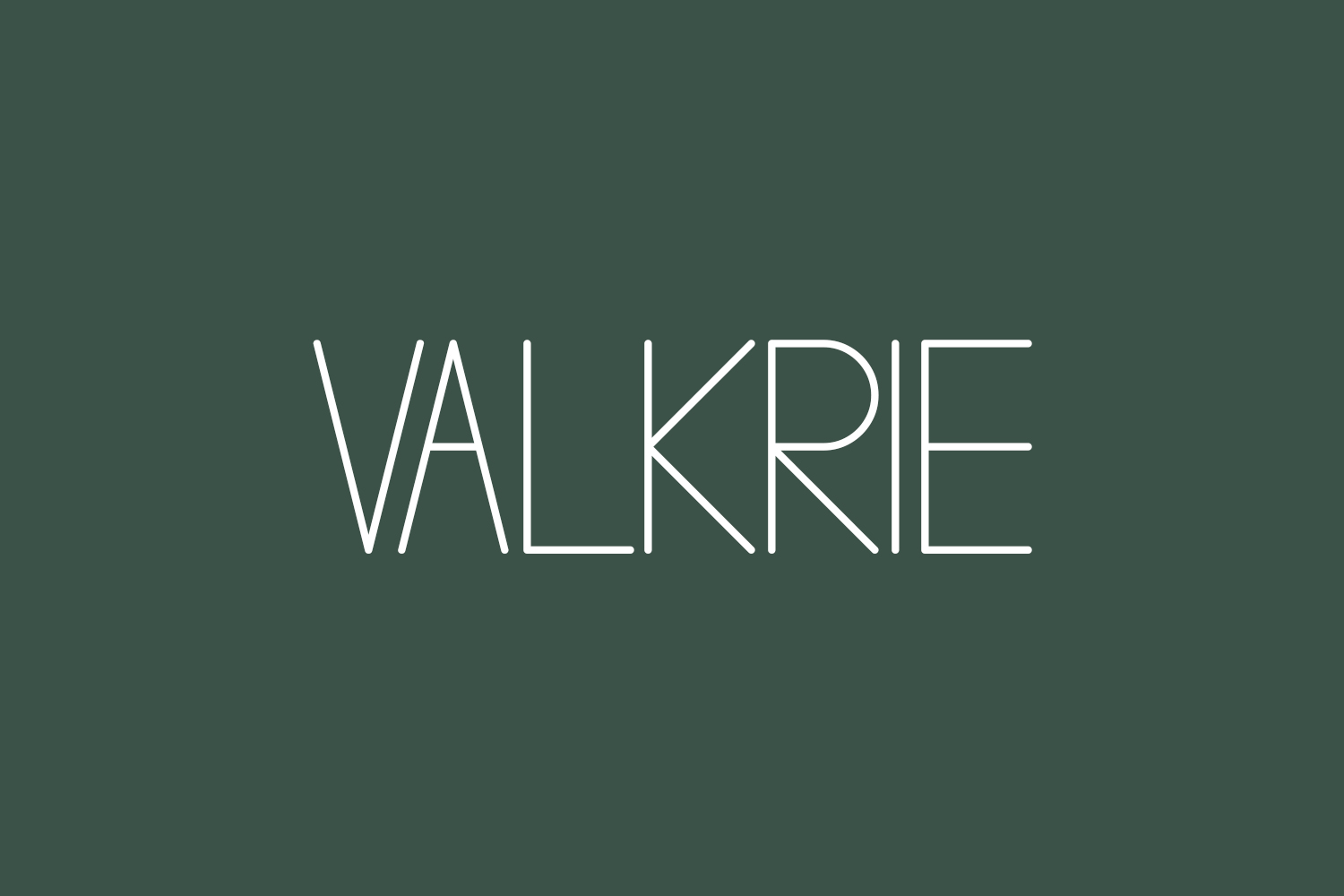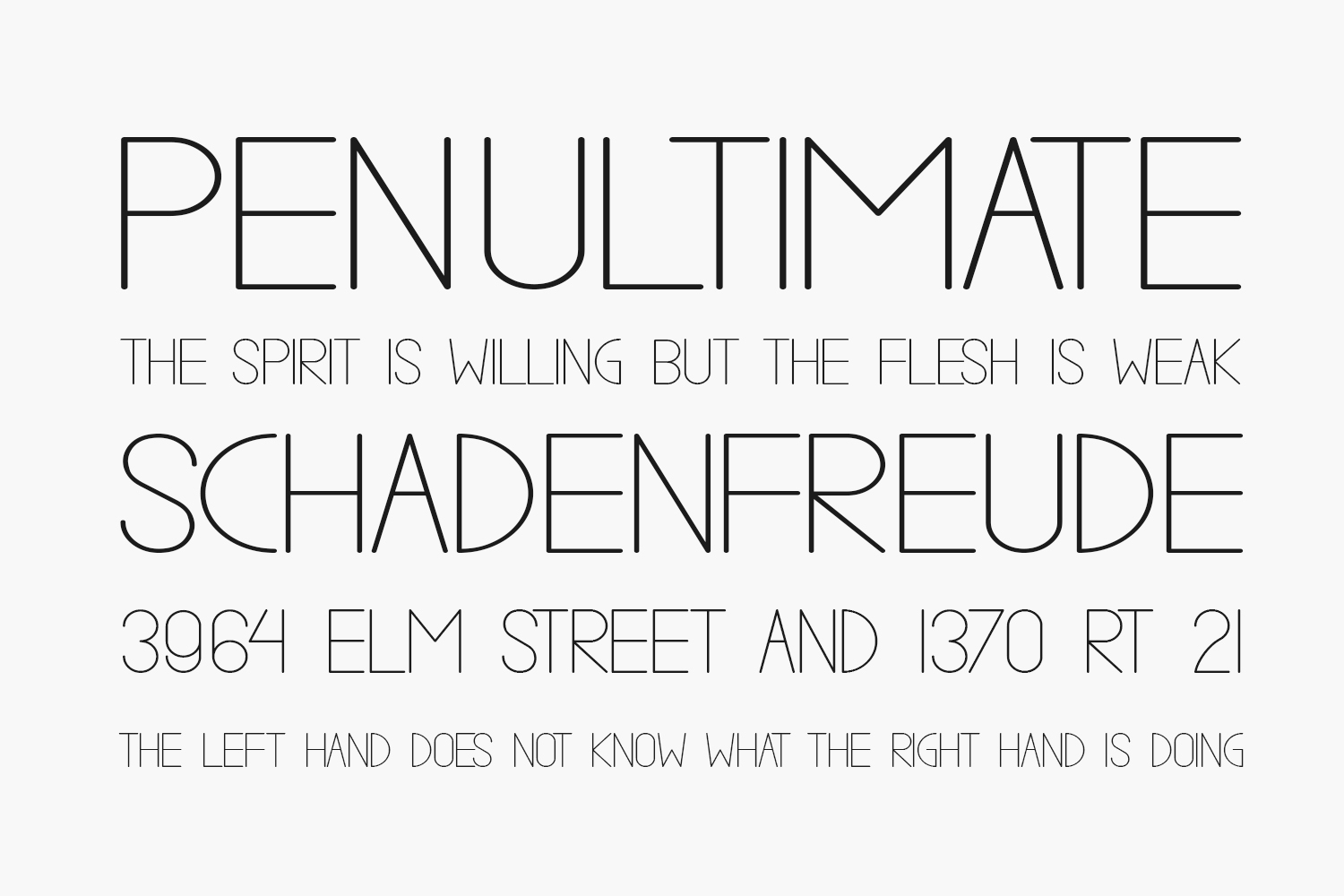
Valkrie Free Font Family is a thin and fresh sans serif font. It can easily be matched to an incredibly large set of projects, so add it to your creative ideas and notice how it makes them stand out. Valkrie Free Font Family was designed by Nariswari Creative and is free for personal use only. Please purchase the full version for commercial use.